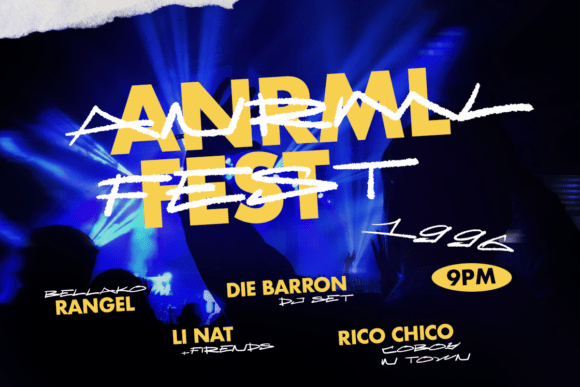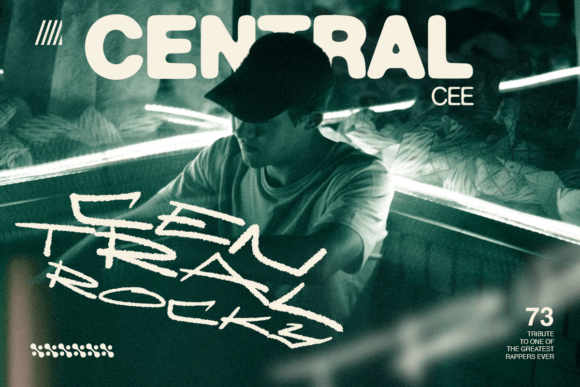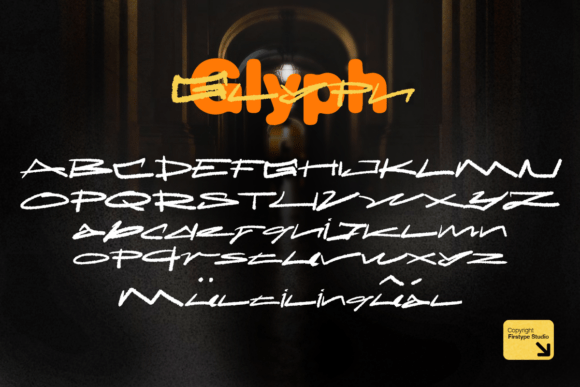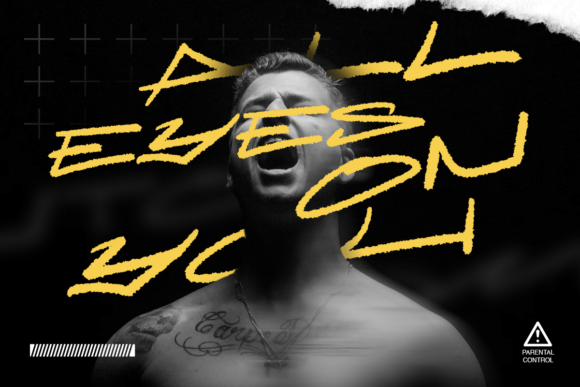
Unleash the Power of FT CrustAce: The Ultimate Crustace Font for Bold Designs
In the realm of typography, few fonts manage to capture the essence of raw power and audacious spirit as effectively as FT CrustAce, a crustace font that has been making waves in the design community. With its gritty and forceful nature, this unfiltered metallic typeface is perfect for designers and crafters looking to add a touch of rugged boldness to their work.
The Inspiration Behind FT CrustAce
FT CrustAce draws its inspiration from the underground milieu, where the unapologetic and unbridled energy of thrashed metal and disintegrated facades reigns supreme. The font’s rugged edges and worn texture evoke the severe intensity of a world where only the boldest and most fearless designs survive. Whether you’re a designer looking to create a statement piece or a crafter seeking to add an edge to your project, FT CrustAce is the perfect choice.
Key Features of FT CrustAce
- Gritty and Forceful Nature: FT CrustAce boasts a gritty and forceful nature that sets it apart from other fonts. Its metallic texture and rugged edges give it a worn, battle-hardened look that’s perfect for bold designs.
- Rugged Edges and Worn Texture: The font’s rugged edges and worn texture add to its raw, unfiltered aesthetic, making it perfect for designs that require a touch of edginess.
- Unfiltered Metallic Typeface: FT CrustAce is an unfiltered metallic typeface that emulates the severe intensity of thrashed metal and disintegrated facades.
Use Cases for FT CrustAce
FT CrustAce is a versatile font that can be used in a variety of scenarios, including:
- Poster Design: Add a touch of boldness to your poster designs with FT CrustAce. Its gritty texture and rugged edges make it perfect for creating eye-catching posters that demand attention.
- Logo Design: Create a lasting impression with FT CrustAce. Its metallic texture and worn edges make it perfect for designing logos that require a touch of edginess.
- Packaging Design: Add an edge to your packaging designs with FT CrustAce. Its bold, rugged aesthetic is perfect for products that require a touch of boldness.
Tips for Using FT CrustAce
To get the most out of FT CrustAce, here are a few tips to keep in mind:
- Pair it with a Neutral Font: Balance out the boldness of FT CrustAce by pairing it with a neutral font. This will create a visually appealing contrast that adds depth to your design.
- Experiment with Colors: Don’t be afraid to experiment with different colors when using FT CrustAce. Its metallic texture looks great with bold, bright colors that add to its rugged aesthetic.
- Use it Sparingly: FT CrustAce is a bold font that demands attention. Use it sparingly to avoid overwhelming your design.
FT CrustAce is a powerful crustace font that adds a touch of boldness to any design. Its gritty texture, rugged edges, and metallic aesthetic make it perfect for designers and crafters looking to create eye-catching designs that demand attention. With its versatility and flexibility, FT CrustAce is sure to become a staple in any designer’s toolkit.